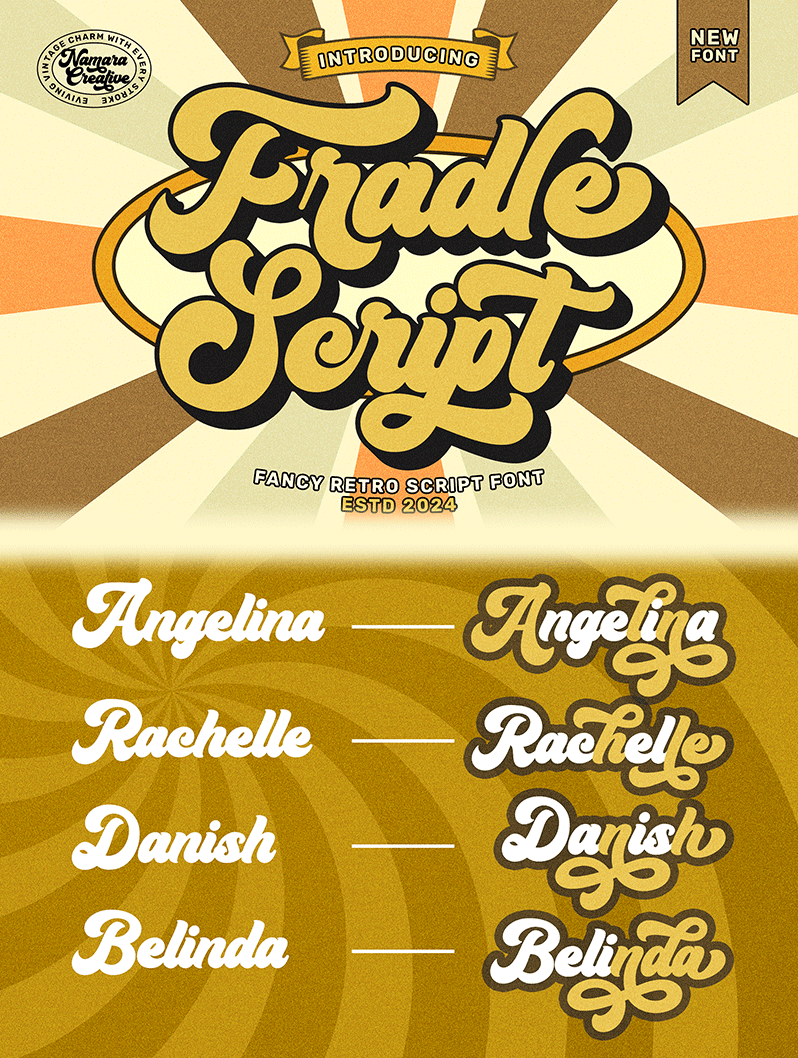
Font name: | Fradle Script |
Author: | Namara Creative |
Note by Namara Creative | |
Retro bold script font that captures the vintage charm and boldness. It brings a nostalgic appeal that resonates with audiences looking for vintage authenticity and modern allure. Notes : - This Font is PERSONAL USE ONLY, NO COMMERCIAL USE ALLOWED! - For Full Version and COMMERCIAL USE, please purchase license here https://onedsgn.com/product/crossboxed/ |